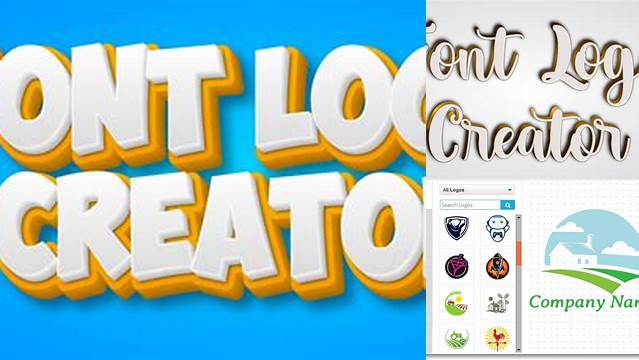
Free Font Logo Maker Online: Design Your Own Logo
Are you looking to create a logo that truly represents your brand? Do you want a logo that's both professional and eye-catching, but don't have the budget to hire a designer? Well, guys, you're in luck! In this comprehensive guide, we'll dive deep into the world of font logo makers, exploring how you can leverage these amazing online tools to craft a stunning logo for free. We'll cover everything from the basics of logo design to the nitty-gritty of using different font logo makers, ensuring you have all the knowledge you need to create a logo that stands out from the crowd.
Why Font Logos are a Great Choice
Before we jump into the tools, let's talk about why a font-based logo might be the perfect choice for your brand. Font logos, also known as wordmarks or logotypes, rely heavily on typography to convey a brand's message and personality. Think of iconic logos like Google, Coca-Cola, or Canon – these are all prime examples of how impactful a well-designed font logo can be. A strong font logo can be incredibly versatile, working well across various platforms and mediums, from your website and social media to business cards and merchandise. The power of typography in logo design lies in its ability to communicate subtle nuances and emotions. A bold, sans-serif font can project strength and modernity, while a delicate, script font might evoke elegance and sophistication. By carefully selecting the right font and manipulating its characteristics, you can create a logo that perfectly encapsulates your brand's identity. One of the biggest advantages of using a font logo maker is the ease of experimentation. You can quickly try out different fonts, sizes, colors, and arrangements to see what resonates best with your vision. This iterative process allows you to refine your design and arrive at a logo that truly captures the essence of your brand. Plus, many free online font logo makers offer a vast library of fonts to choose from, giving you endless possibilities to explore. Beyond aesthetics, font logos offer practical benefits as well. They are often easier to remember and recognize than complex graphical logos, especially for new brands trying to establish their presence. A clear, well-crafted wordmark can help your brand name stick in people's minds, making it easier for them to find you and remember your services or products. So, if you're looking for a logo that's simple yet impactful, versatile yet memorable, a font logo might just be the answer.
Key Elements of a Successful Font Logo
Creating a successful font logo involves more than just picking a pretty typeface. It's about understanding the core principles of design and how they apply to typography. Let's break down some key elements that contribute to a logo that truly shines. First and foremost, legibility is paramount. Your logo should be easy to read and understand at a glance, regardless of size or context. This means choosing a font that is clear and uncluttered, avoiding overly decorative or ornate typefaces that can hinder readability. Think about how your logo will appear on different platforms, from a small mobile screen to a large banner. Will the font remain legible in all these scenarios? This is a crucial question to consider during the design process. Next up is font choice. The typeface you select should reflect your brand's personality and values. As mentioned earlier, different fonts evoke different emotions and associations. A modern tech company might opt for a clean, sans-serif font, while a traditional bakery might prefer a more classic, serif typeface. Take some time to research different font styles and their connotations. Experiment with various options to see which one best captures the essence of your brand. Color plays a vital role in logo design as well. Colors can evoke emotions, convey meaning, and create a strong visual impact. Think about the psychology of color and how it relates to your brand. For example, blue often represents trust and stability, while red can signify excitement and energy. Choose colors that complement your font choice and reinforce your brand message. Many free font logo makers offer a color palette tool, allowing you to experiment with different color combinations. Spacing and kerning are often overlooked but are crucial for a polished logo. Kerning refers to the spacing between individual letters, while spacing encompasses the overall layout of your logo. Adjusting these elements can significantly impact the legibility and visual appeal of your logo. A well-spaced logo feels balanced and harmonious, while poorly spaced letters can create awkward gaps or overlaps. Finally, simplicity is key. A great logo is often the simplest one. Avoid cluttering your design with unnecessary elements. A clean, minimalist logo is more likely to be memorable and versatile. Think about how iconic logos like Nike's swoosh or Apple's bitten apple achieve so much with so little. The same principle applies to font logos. A well-chosen font, thoughtfully arranged, can be just as impactful as a complex graphical design.
Free Online Font Logo Makers: Your Design Arsenal
Now that we've covered the fundamentals of font logo design, let's explore the exciting world of free online font logo makers. These tools empower you to create professional-looking logos without any design experience or expensive software. There are numerous options available, each with its unique features and strengths. We'll highlight some of the most popular and user-friendly platforms, giving you a taste of what's out there. One of the top contenders is Canva. While Canva is a versatile graphic design platform, its logo maker is particularly impressive. It offers a vast library of fonts, graphics, and templates, making it easy to create a logo that matches your brand's aesthetic. Canva's intuitive drag-and-drop interface makes the design process a breeze, even for beginners. You can customize everything from font size and color to spacing and arrangement. Plus, Canva offers a free plan with plenty of features to get you started. Another excellent option is Looka. Looka uses AI technology to generate logo designs based on your preferences. You simply enter your brand name, industry, and preferred styles, and Looka will create a range of logo options for you to choose from. You can then customize these designs further, tweaking the fonts, colors, and layouts to your liking. Looka's AI-powered approach can be a great way to jumpstart your logo design process and explore different ideas. Tailor Brands is another AI-driven logo maker that's worth checking out. Similar to Looka, Tailor Brands generates logo designs based on your input. It also offers a range of branding tools, including business card templates and social media graphics, making it a one-stop shop for your branding needs. Tailor Brands' interface is clean and user-friendly, making it easy to navigate and customize your logo. If you're looking for a more minimalist approach, Namecheap's Free Logo Maker is a great option. This tool focuses on simplicity and ease of use, offering a straightforward interface and a selection of pre-designed logo templates. You can customize these templates with your brand name and colors, creating a professional-looking logo in minutes. Namecheap's logo maker is perfect for those who want a quick and easy solution without sacrificing quality. DesignEvo is another popular choice, offering a vast library of fonts and icons to create your logo from scratch. It boasts a user-friendly interface and a wide range of customization options, allowing you to create a truly unique logo. DesignEvo's search function makes it easy to find specific icons or fonts, streamlining the design process. These are just a few examples of the many free online font logo makers available. Each platform offers a slightly different experience, so it's worth exploring a few to find the one that best suits your needs and preferences.
Step-by-Step Guide to Creating a Font Logo Online
Now, let's walk through the process of creating a font logo online step-by-step. While the specific steps may vary slightly depending on the platform you choose, the general principles remain the same. This guide will provide you with a solid framework for creating a logo you'll be proud of.
Define Your Brand Identity: Before you even touch a logo maker, take some time to define your brand identity. What are your brand values? What is your target audience? What kind of message do you want to convey? Answering these questions will help you make informed decisions about font choice, color palette, and overall logo style. Think about your brand's personality – is it modern and innovative, or traditional and trustworthy? Your logo should be a visual representation of your brand identity.
Research Your Competition: Take a look at the logos of your competitors. What are they doing well? What could you do differently? This isn't about copying their designs, but rather about understanding the landscape and identifying opportunities to stand out. Pay attention to the fonts, colors, and overall style used in your industry. This research can help you avoid clichés and create a logo that's both unique and relevant.
Choose a Font Logo Maker: Based on your needs and preferences, select a free online font logo maker. As we discussed earlier, there are many options available, so take some time to explore a few and find the one that feels most comfortable for you. Consider factors like the platform's user interface, font library, customization options, and pricing (if you're considering upgrading to a paid plan).
Enter Your Brand Name and Slogan (Optional): Once you've chosen a logo maker, the first step is usually to enter your brand name. Some platforms also allow you to add a slogan or tagline. This information will be used as the foundation for your logo design.
Select Your Industry and Style Preferences: Many logo makers will ask you about your industry and style preferences. This helps the platform generate logo designs that are relevant to your brand. Be as specific as possible when describing your industry, as this will help the AI algorithms (if the platform uses them) generate more targeted designs. Similarly, be clear about your style preferences, whether you prefer a minimalist, modern, classic, or playful look.
Explore Logo Options and Customize Your Design: Once you've entered your information, the logo maker will generate a range of logo options for you. Browse through these options and select the one that resonates most with you. Now comes the fun part: customization! Experiment with different fonts, colors, sizes, spacing, and arrangements until you're happy with the result. Don't be afraid to try different combinations and see what works best. Remember to keep legibility in mind throughout the customization process.
Conclusion: Your Journey to a Perfect Font Logo Starts Now
So, guys, we've journeyed through the exciting world of font logo makers, uncovering the secrets to creating stunning logos for free. From understanding the key elements of a successful font logo to mastering advanced design techniques, you're now armed with the knowledge to craft a logo that truly represents your brand. Remember, your logo is more than just a pretty picture; it's the face of your brand, the first impression you make on potential customers. A well-designed logo can build trust, convey your brand's values, and help you stand out in a crowded marketplace. With the plethora of free online font logo makers available, there's no excuse not to have a professional-looking logo, even on a tight budget. These tools empower you to experiment, iterate, and create a logo that perfectly captures the essence of your brand. The key is to take your time, be creative, and don't be afraid to try new things. Explore different fonts, colors, and layouts until you find a combination that resonates with you. And remember, simplicity is often the key to a memorable logo. As you embark on your logo design journey, don't hesitate to seek inspiration from other brands, but always strive to create something original and unique. Your logo should be a reflection of your brand's personality and values, not a carbon copy of someone else's. So, what are you waiting for? Dive into the world of font logo makers and start creating the logo of your dreams today! With a little creativity and the right tools, you can design a logo that will make your brand shine. And remember, guys, a great logo is an investment in your brand's future. It's a visual asset that will serve you well for years to come, helping you build brand recognition, attract customers, and achieve your business goals. So, go ahead, unleash your creativity, and let your logo tell your brand's story. The perfect font logo is out there, waiting to be discovered. And who knows, it might just be the key to unlocking your brand's full potential.